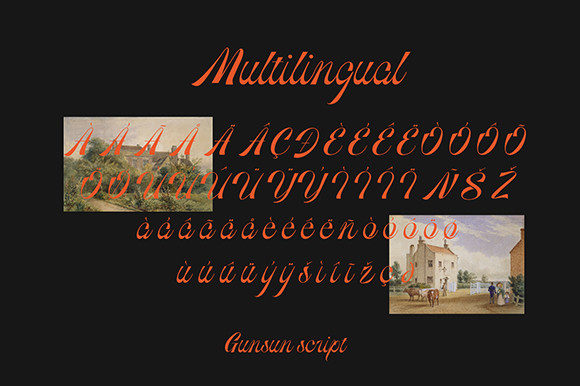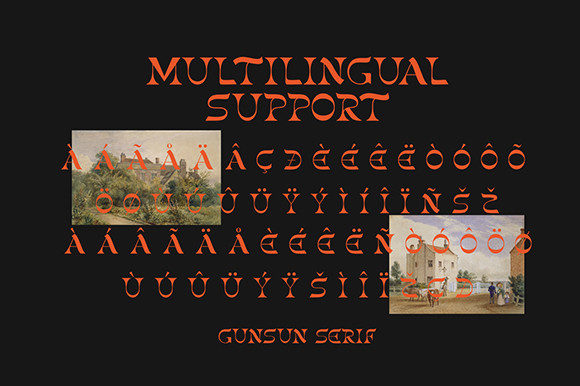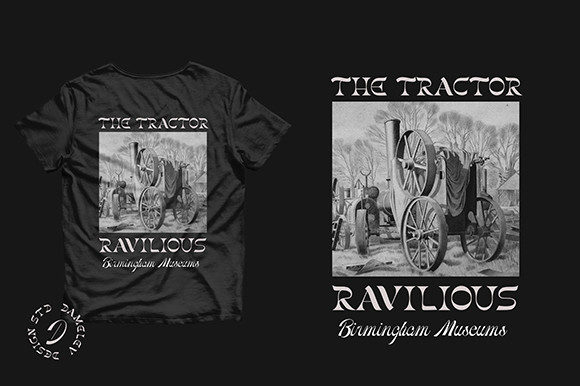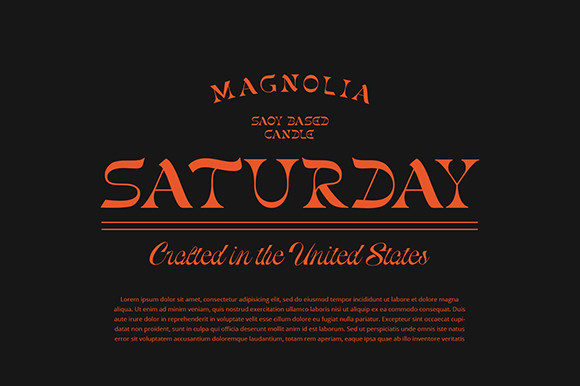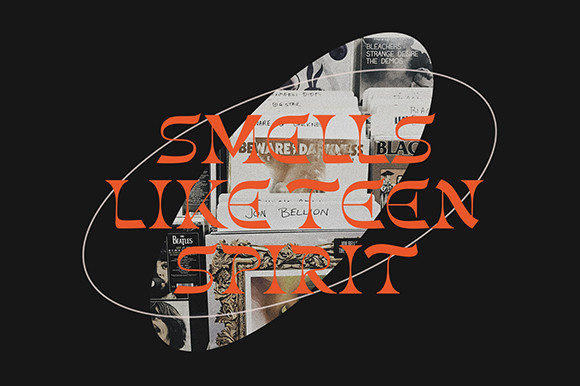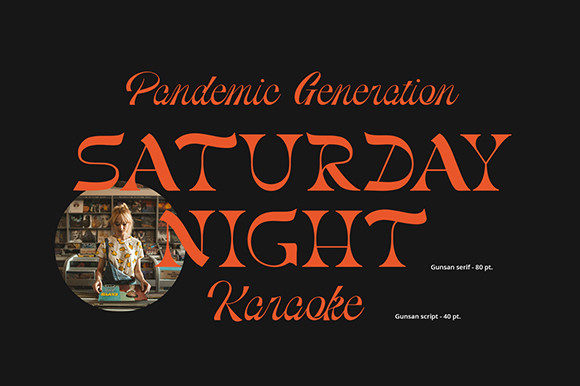
Introduction to Gunsan Font
Gunsan is an incredibly distinct and unique display font.
Not too thin and not too thick, balanced and varied, this font was designed to enhance the beauty of your projects .
Key Features of Gunsan Font